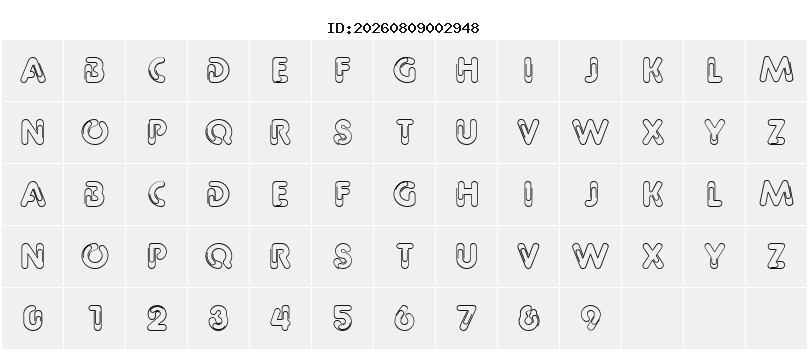
Pipeline Preview
• Font Name: Pipeline
• Font ID: Pipeline Plain
• Full Font Name: Pipeline
• PostScript Name: PipelinePlain
• Character Count: 237
About Pipeline.ttf
Pipeline.ttf is a modern, elegant sans-serif font designed for ultimate readability and visual harmony. Perfect for branding, headlines, web design, and print materials.